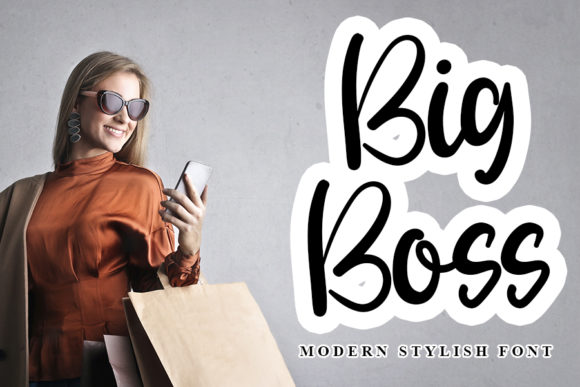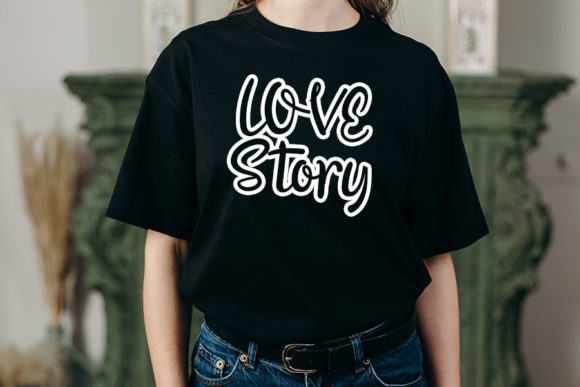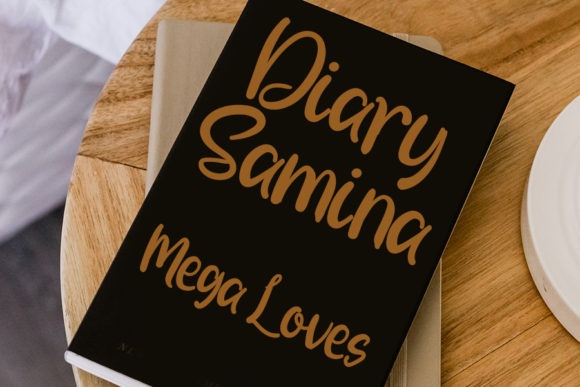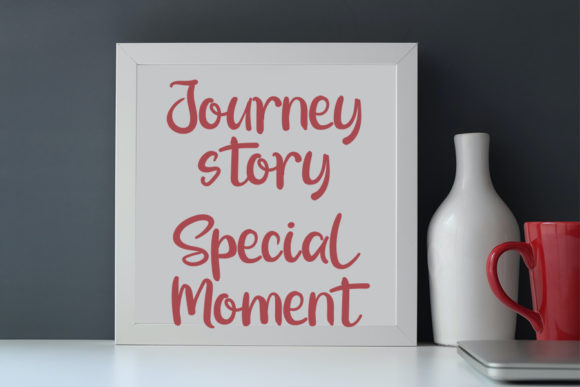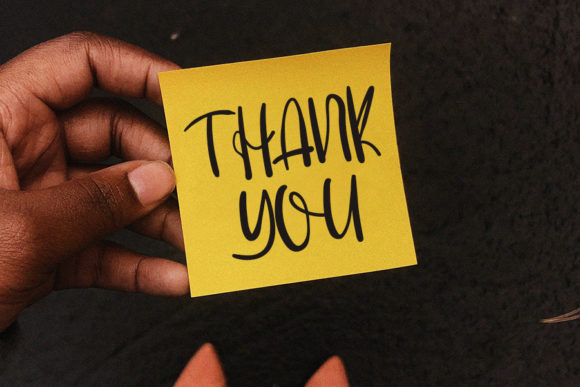
Big Boss Font
About Big Boss Font
Big Boss is a modern handwritten font. Classy and trendy, this font will become your top choice in no time. Let your imagination be the limit!